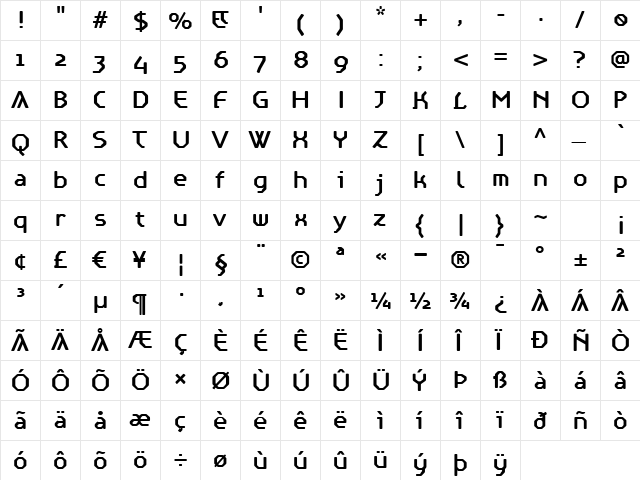
AlertMedium Regular
Design Context for AlertMedium Typeface
AlertMedium offers clean, dependable letterforms without strong stylistic allegiance, making it a practical choice for designers who need flexibility.
Pro Tip: Pair AlertMedium with a font of contrasting weight or personality to build a more expressive typographic hierarchy.